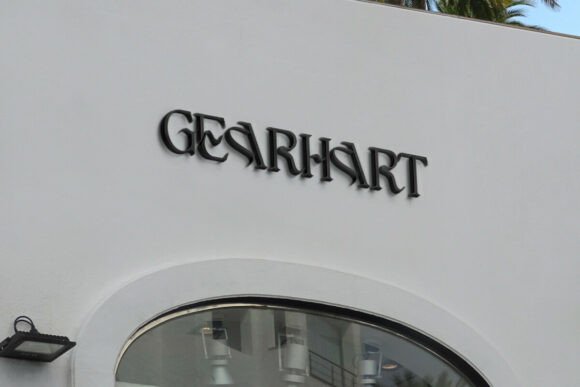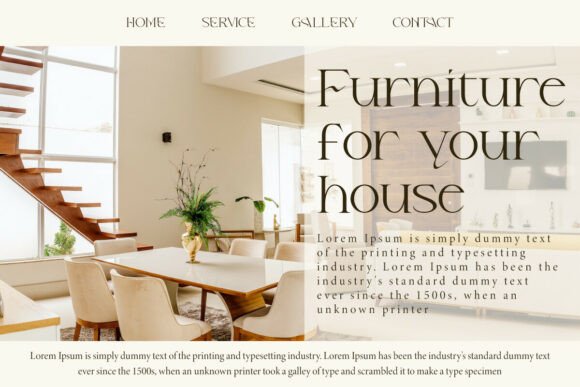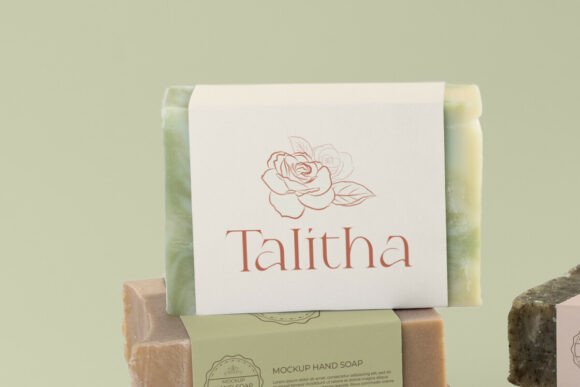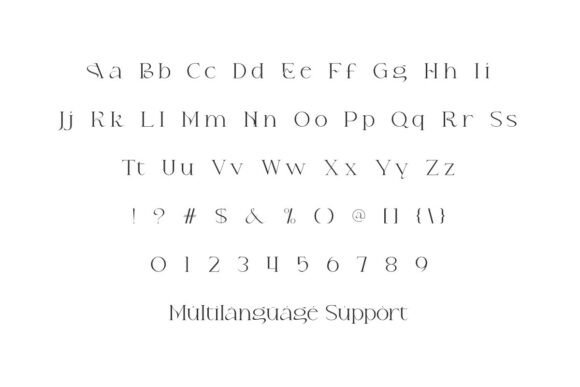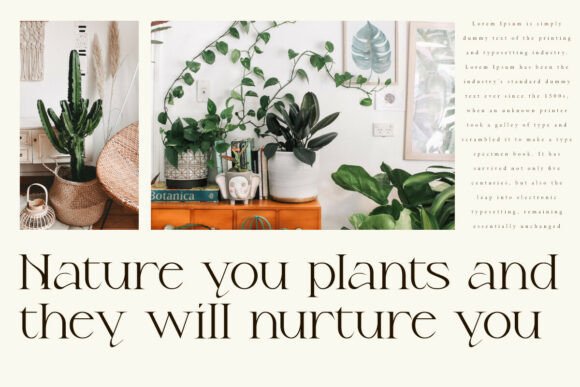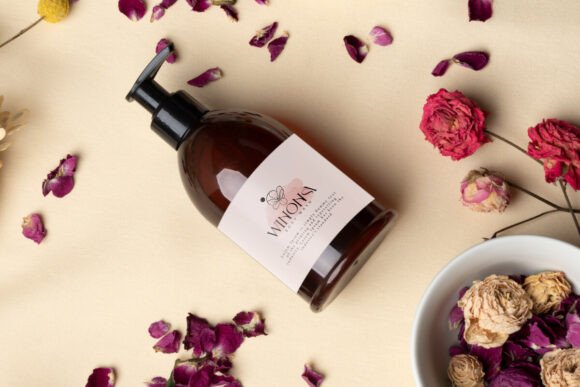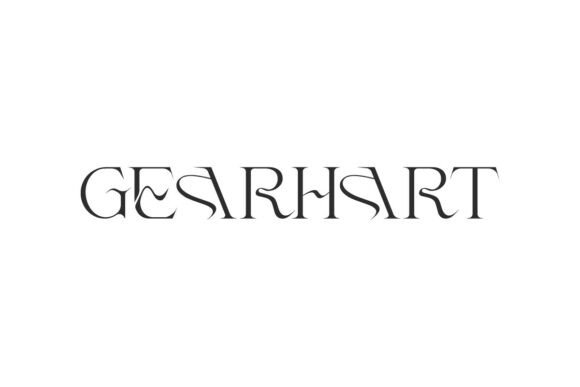
Introducing Gearhart Font: The Avant-Garde Serif Display Typeface
Step into the realm of the avant-garde with Gearhart font, an experimental serif display typeface that reimagines traditional letterforms through a fluid, liquid-inspired lens. This innovative typeface is designed to challenge the status quo and push the boundaries of modern typography.
The Design Philosophy of Gearhart Font
Gearhart font features mesmerizing, wavy stems and sharp, needle-like terminals that create a hypnotic visual rhythm. The design philosophy behind Gearhart is to create a sense of movement and fluidity, as if the letters are melting and flowing into one another. This unique approach to typography makes Gearhart the ultimate choice for designers looking to add a touch of experimentation and creativity to their work.
Perfect for Experimental and Edgy Designs
Gearhart font is perfect for music festival posters, “trippy” streetwear branding, and experimental digital art. The font’s bold and eye-catching design makes it a bold statement piece for any designer looking to make a statement. Additionally, Gearhart font functions as a standalone piece of art, turning simple titles into complex, organic textures that demand attention.
Pairing Gearhart with Other Fonts
To truly showcase the unique qualities of Gearhart font, it’s best to pair it with ultra-minimalist, static fonts. This contrast allows the “liquid” movement of the characters to take center stage, creating a visually striking combination that adds depth and interest to any design. Whether you’re designing album covers, edgy fashion magazines, or high-concept gallery branding, Gearhart font is the perfect choice.
Accessibility and Encoding
Gearhart font comes with PUA encoding, which means that all special characters and decorative elements are easily accessible without additional software or complicated installations. This makes it easy for designers to get creative with Gearhart and experiment with different styles and combinations.
Why Choose Gearhart Font?
So why choose Gearhart font for your next design project? Here are just a few reasons:
- Unique and Experimental Design: Gearhart font offers a truly unique and experimental approach to typography, making it perfect for designers looking to push the boundaries of modern design.
- Highly Versatile: Gearhart font can be used for a wide range of design projects, from music festival posters to fashion magazines and digital art.
- Easy to Use: With PUA encoding, Gearhart font is easy to use and accessible to designers of all levels.
- Bold and Eye-Catching: Gearhart font makes a bold statement, adding a touch of edginess and experimentation to any design.
In conclusion, Gearhart font is a game-changer for designers looking to add a touch of experimentation and creativity to their work. With its unique and fluid design, Gearhart font is perfect for music festival posters, fashion magazines, and experimental digital art. Whether you’re a seasoned designer or just starting out, Gearhart font is a bold statement piece that’s sure to turn heads.